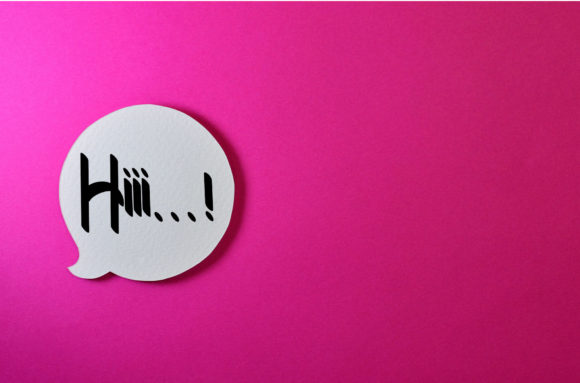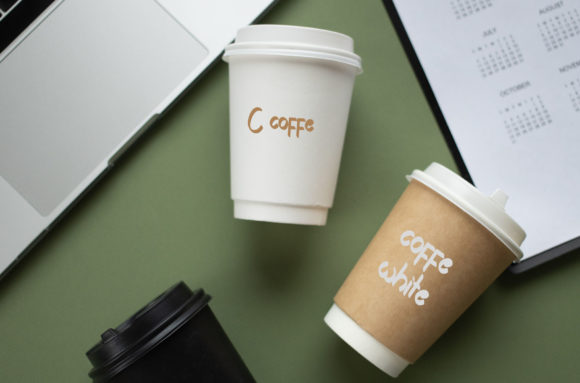
Introduction to Hello Panda Font
Hello Panda is a cool and retro looking display font, that will truly inspire your works.
Key Features of Hello Panda Font
Why Choose Hello Panda Font?